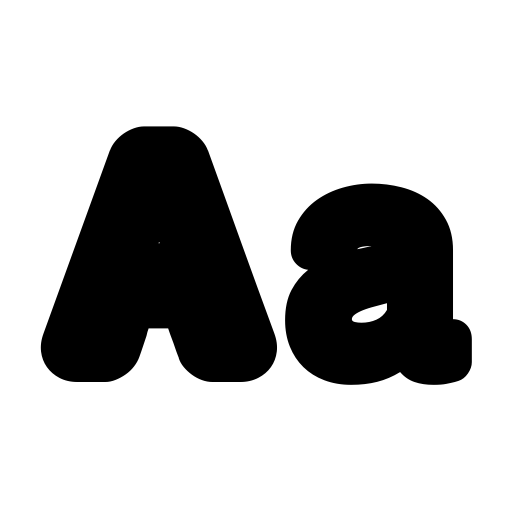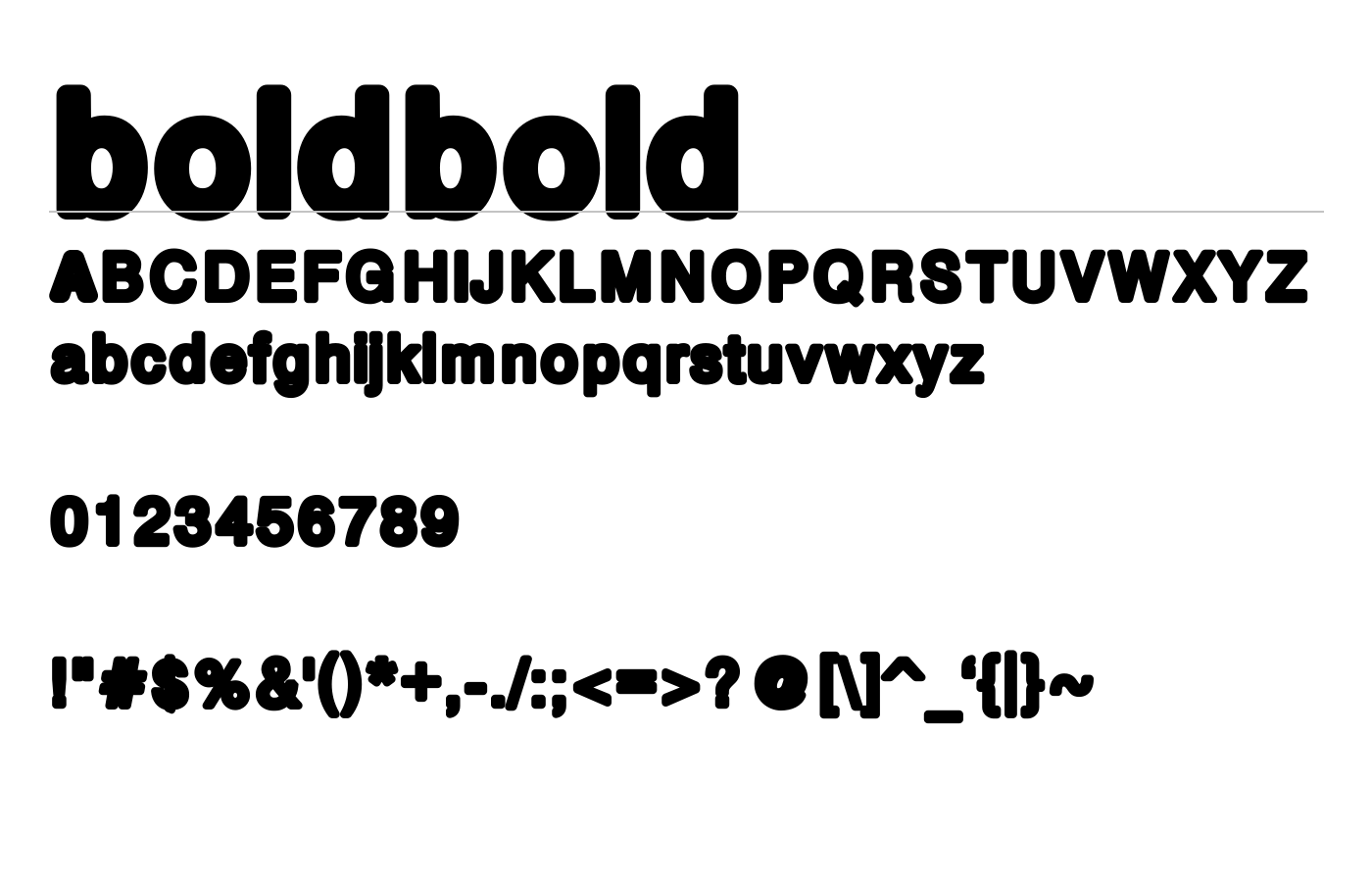
Boldbold is a heavy, rounded sans-serif font with a strong, playful character. Its thick strokes and soft edges create a friendly and approachable feel, making it ideal for eye-catching headlines, logos, and branding that want to convey warmth and boldness. This font works great in informal contexts where an inviting yet impactful style is needed.
About boldbold Font